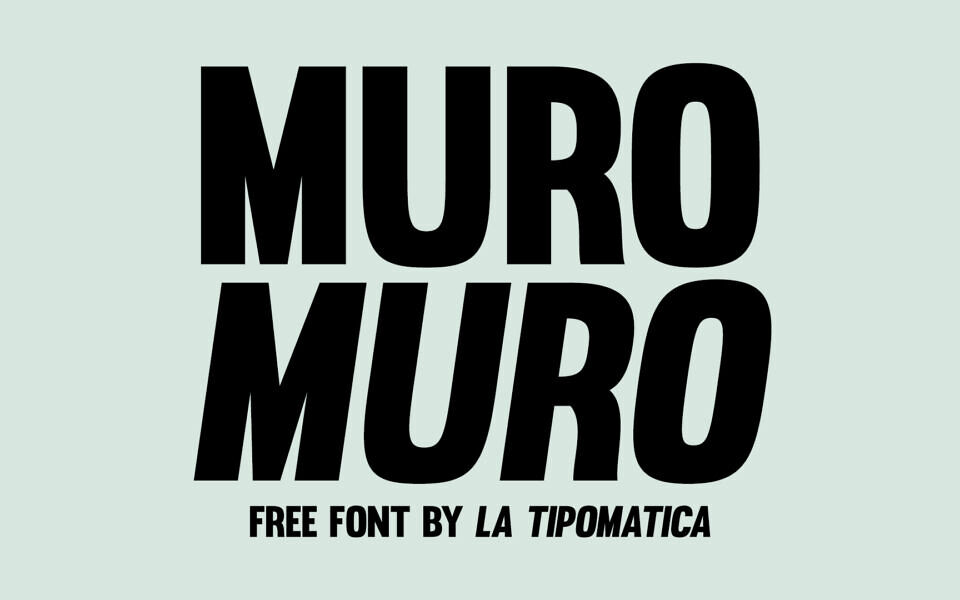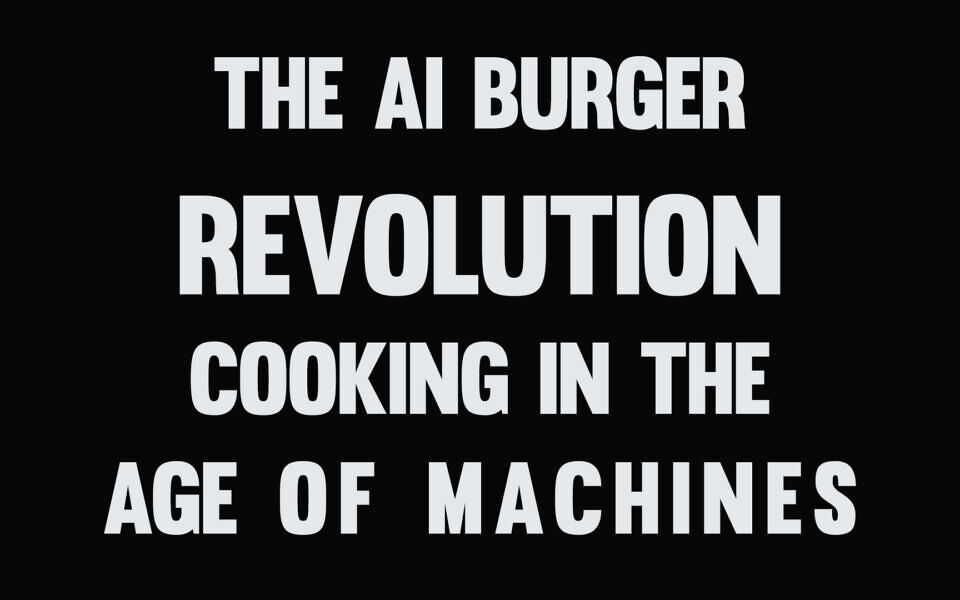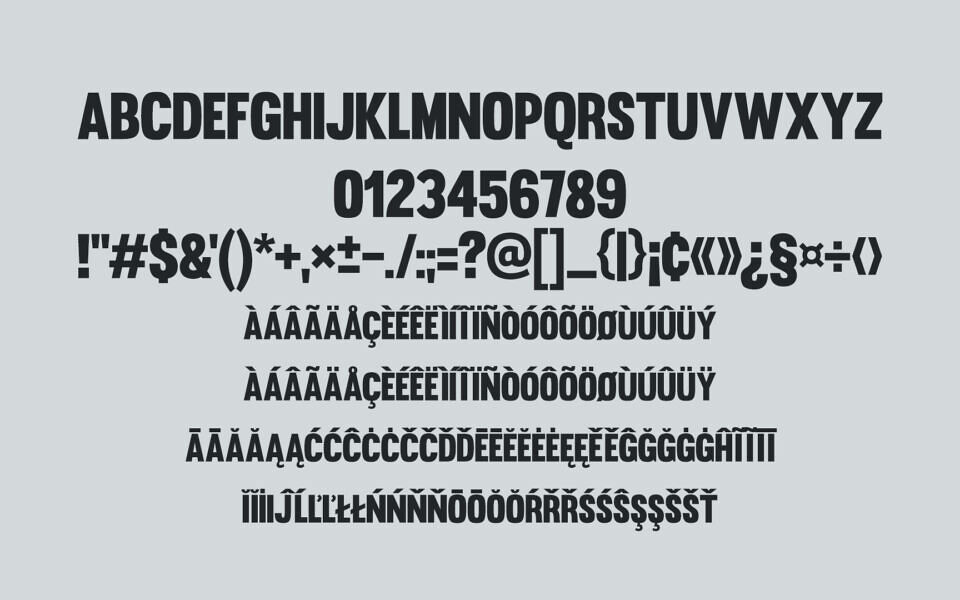
Muro is a bold, industrial sans-serif font created by La Tipomatica. It features thick, blocky strokes and a clean geometric structure that provides high visibility and impact. Completely free for both personal and commercial projects, the font family includes both upright and slanted styles.
Its strong, architectural feel makes it a versatile choice for headlines, logos, posters, and urban-themed designs where a sense of durability and modern simplicity is required.